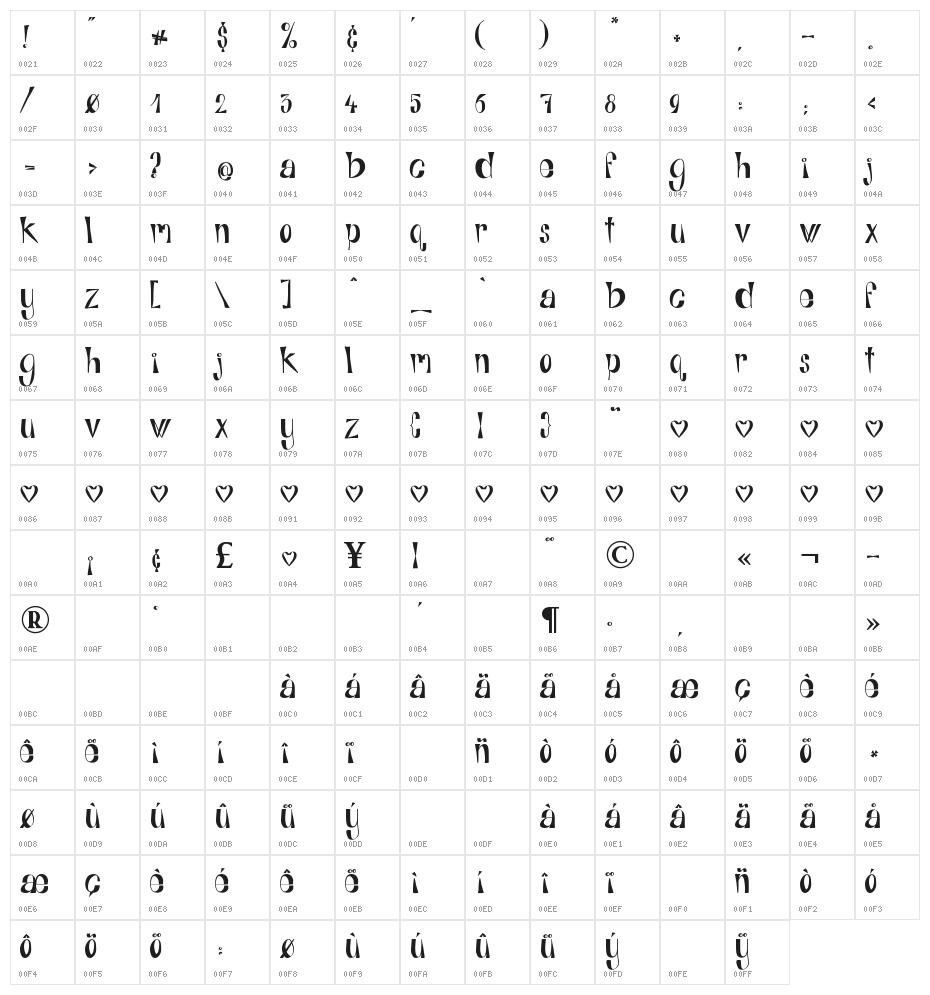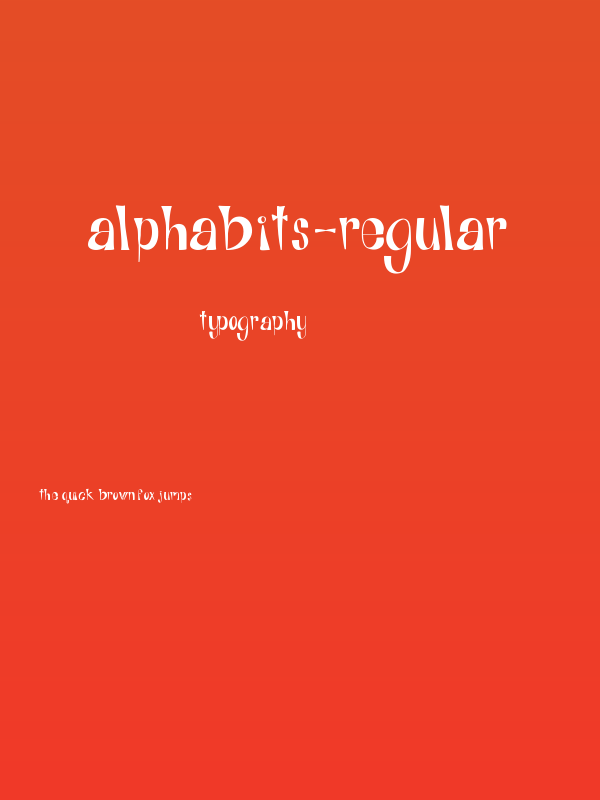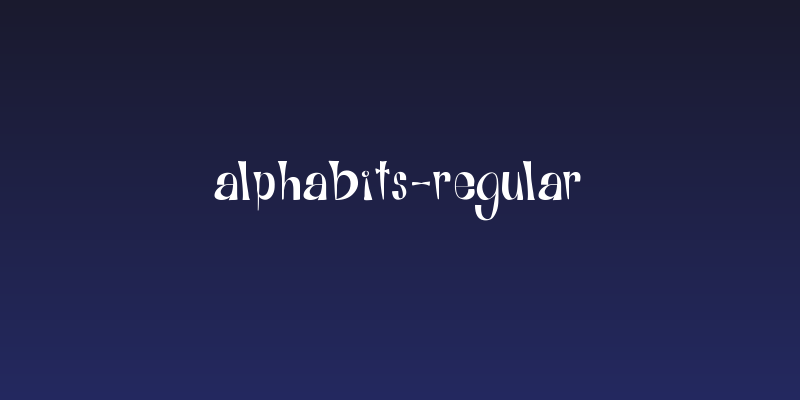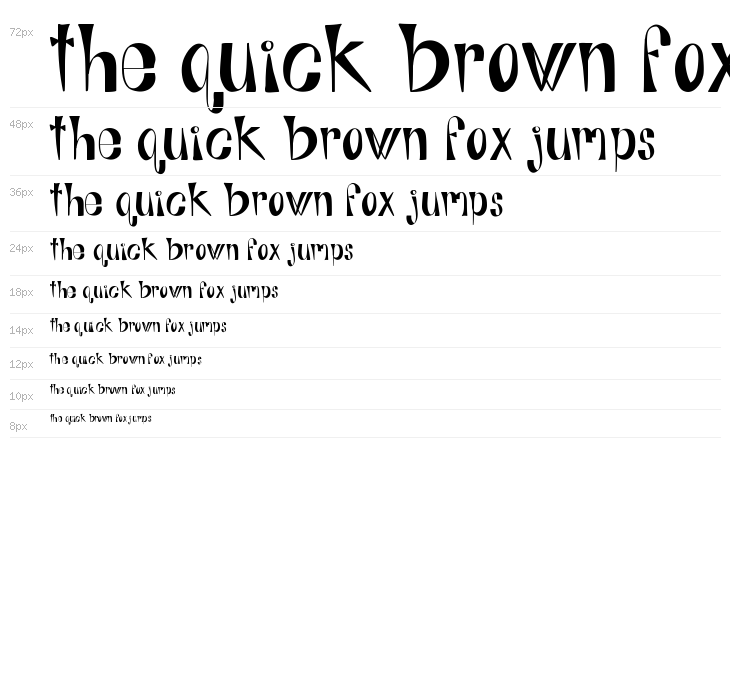
Alphabits-Regular Font
Alphabits-Regular Description
This font features a playful and whimsical design with exaggerated curves and varying stroke widths. The characters have a unique, almost cartoonish style, with some letters featuring elongated ascenders and descenders. The overall appearance is bold and eye-catching, making it suitable for creative and informal applications. The numbers and special characters maintain the same playful aesthetic, ensuring consistency throughout the typeface.
| Proposed Projects | Ideal for children's books, playful branding, posters, and creative invitations. |